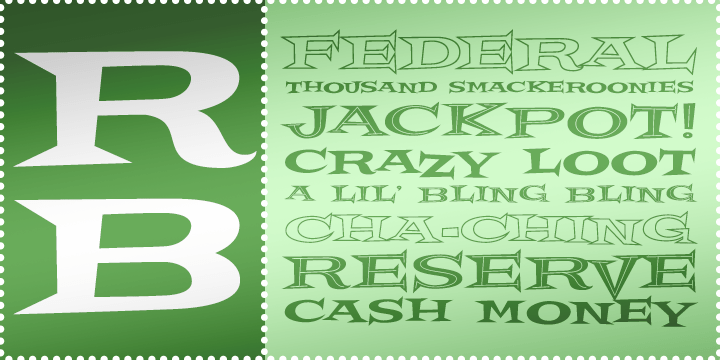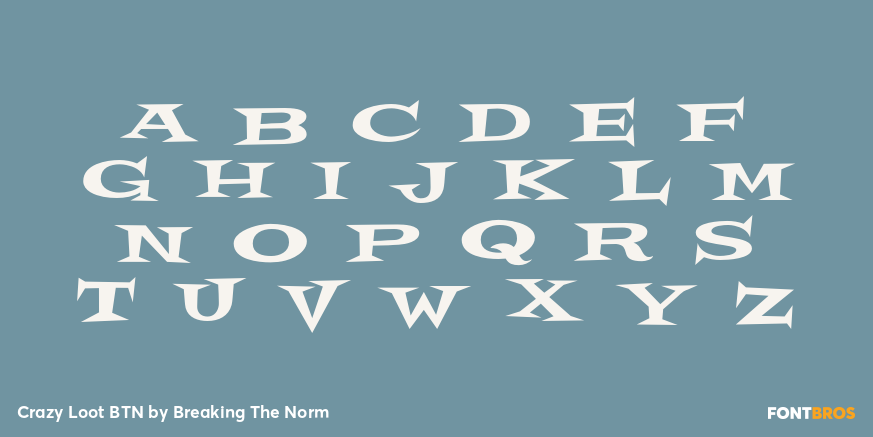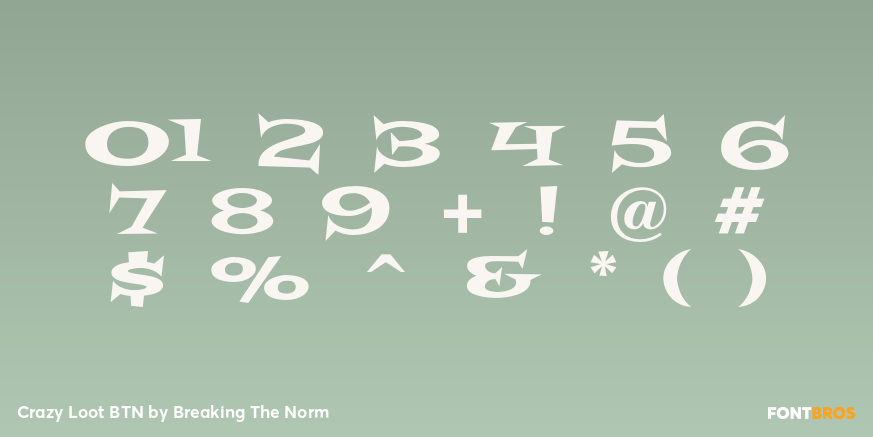
Crazy Loot BTN
Crazy Loot BTN is an offbeat retro display family with a loose Latin-inspired flavor and a mischievous, money-soaked personality. Built with alternate-cap energy and a deliberately quirky attitude, it brings a lively vintage feel that works especially well for posters, packaging, signage, restaurant graphics, event materials, themed branding, and playful editorial design. Its mix of Regular, Inline, and Outline styles adds extra flexibility for creating layered headlines and eye-catching display typography. Crazy Loot BTN has a bold, unusual character that feels a little flashy, a little gritty, and full of throwback charm.